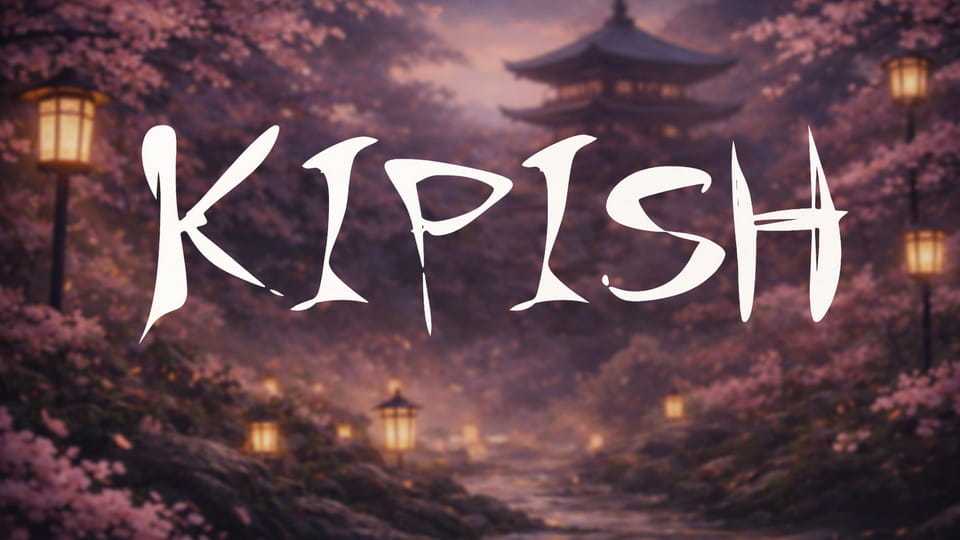
Download Kipish font, a Japanese-style script typeface inspired by brush lettering and traditional calligraphy. Its sharp strokes and expressive forms create a dynamic and slightly dramatic mood.
Designer: Mariia Martynenko